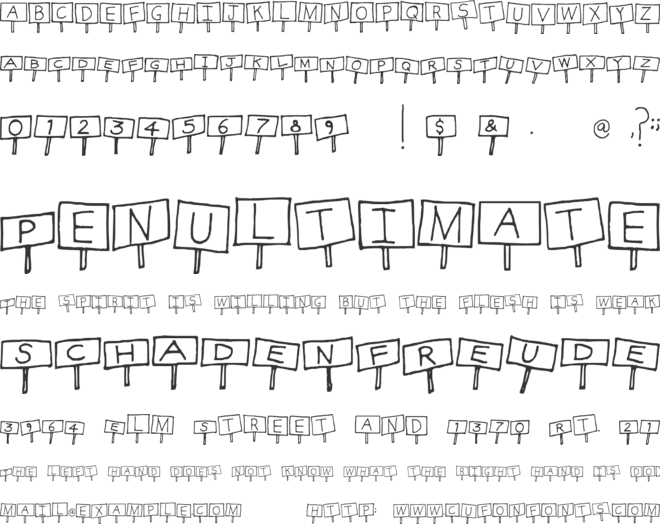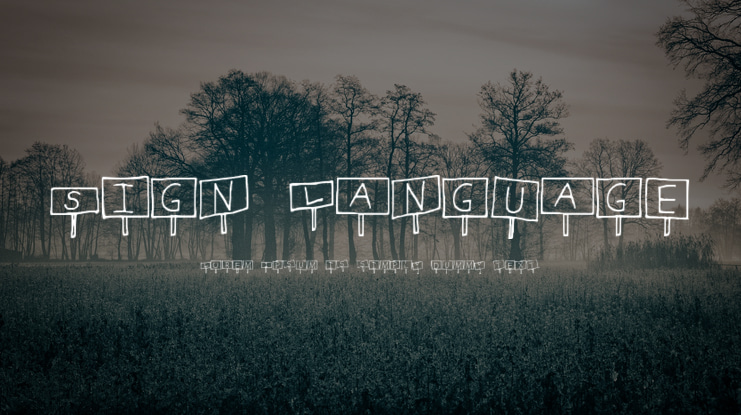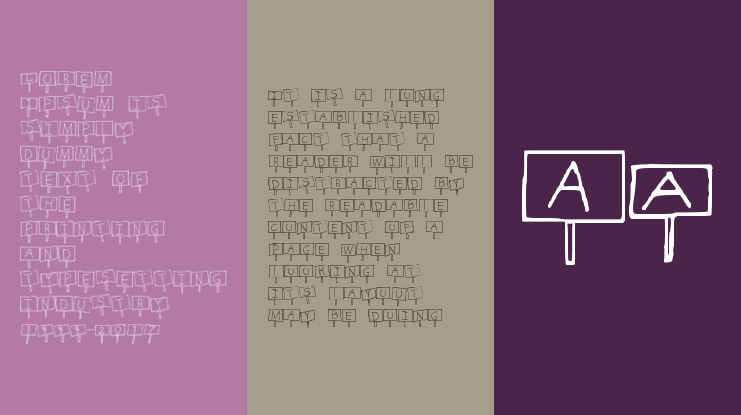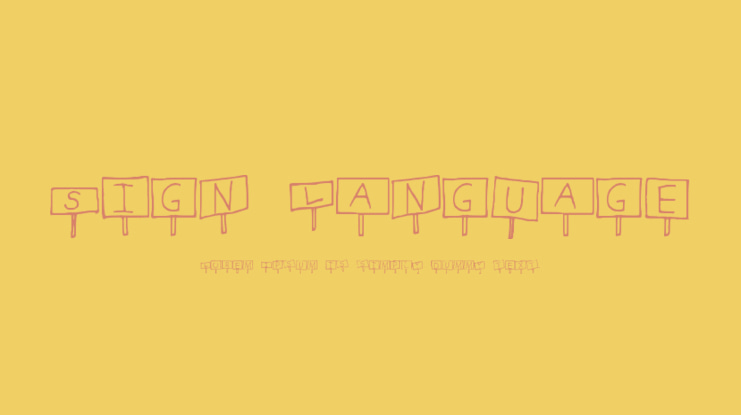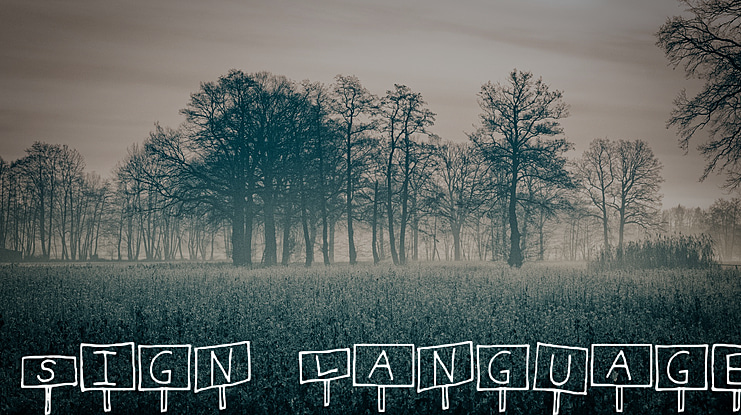
Sign Language Font
I thought this would be a fun font to create. You can colour in the alphabet signs inside the program 'Paint' or put the font through Text Effects via WordArt in Microsoft Word. You will note there are 2 basic sizes of the font. 99c to use Commercially at https://www.creativefabrica.com/designer/shelley-2 Thank you!